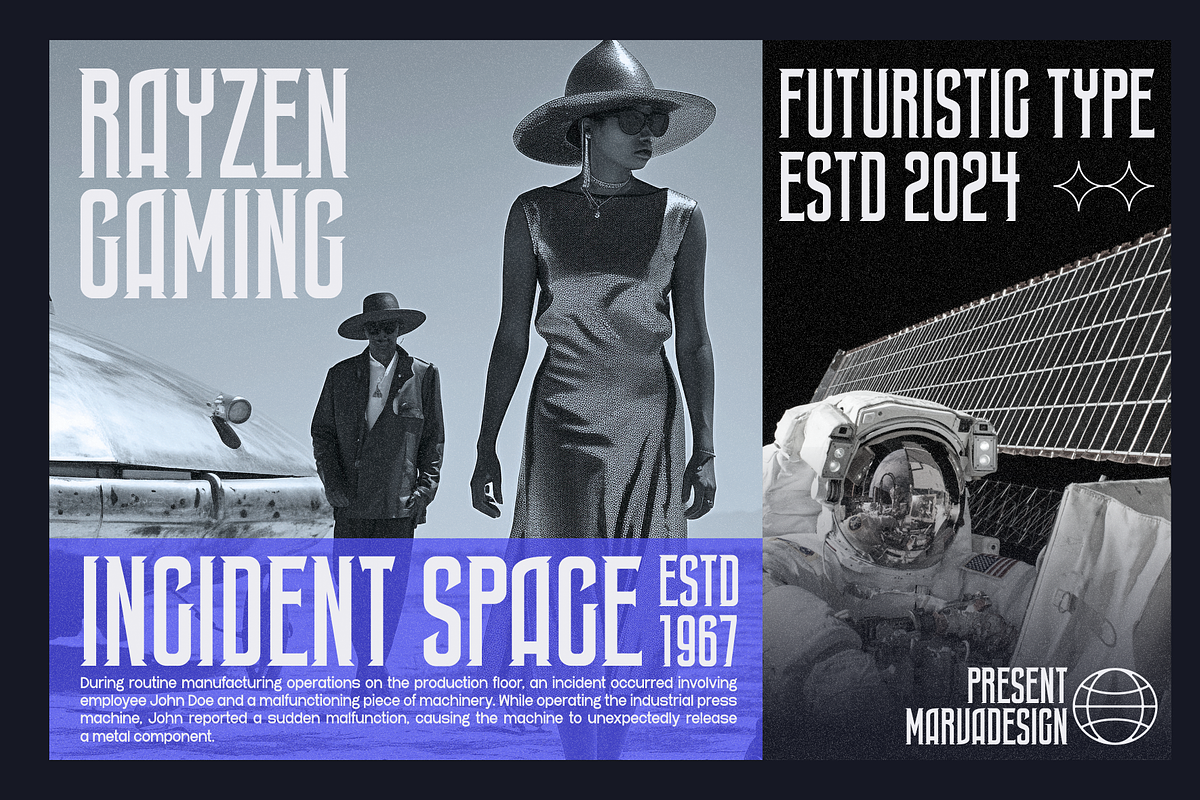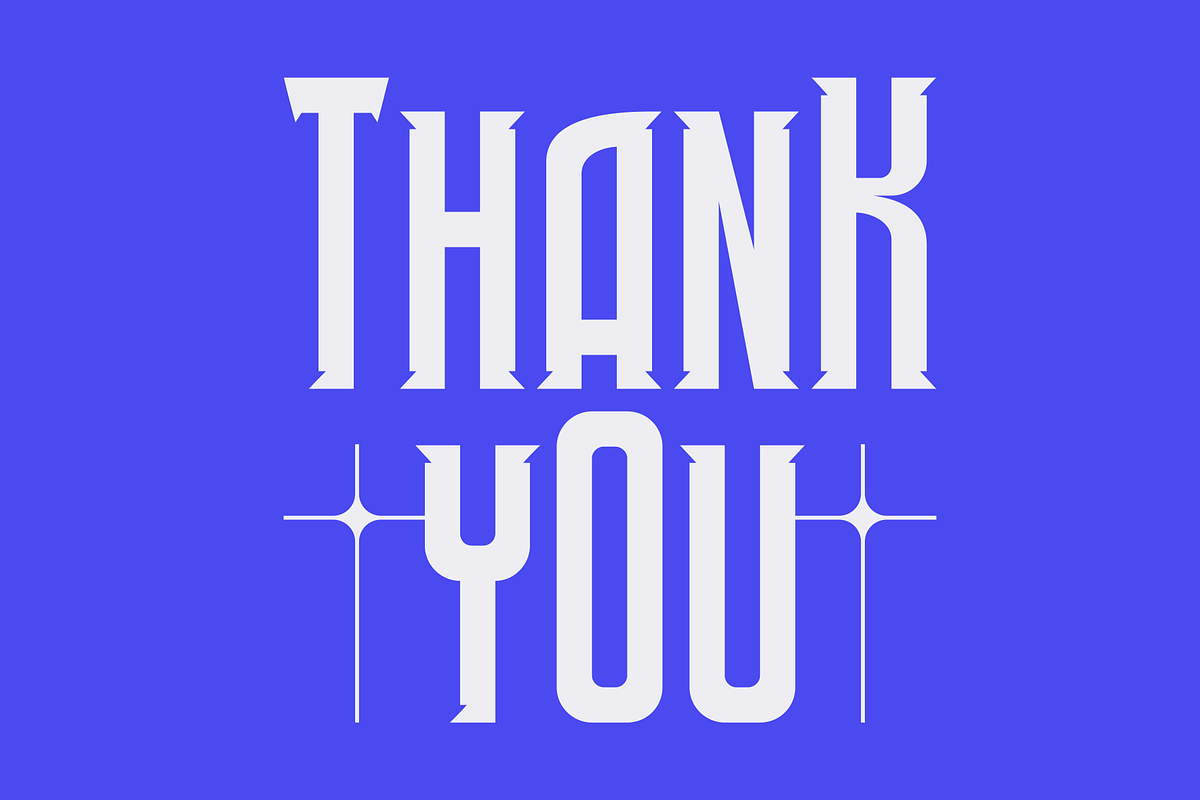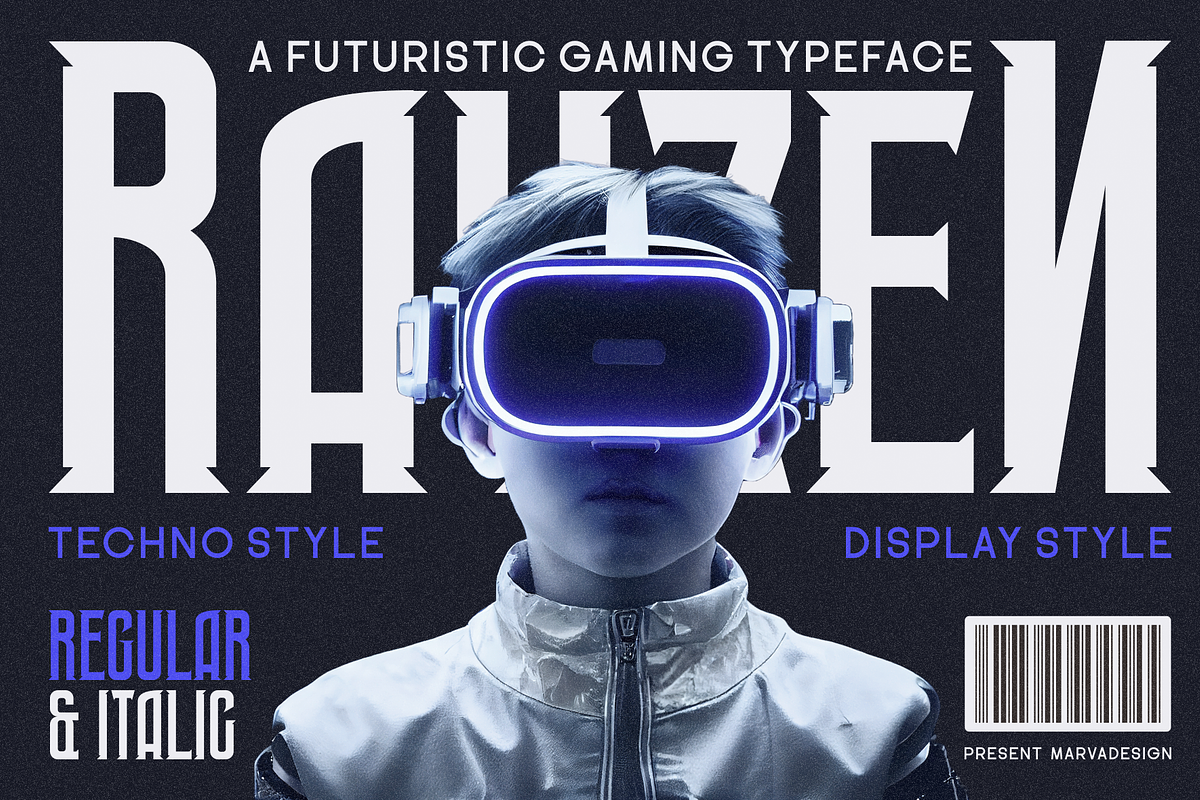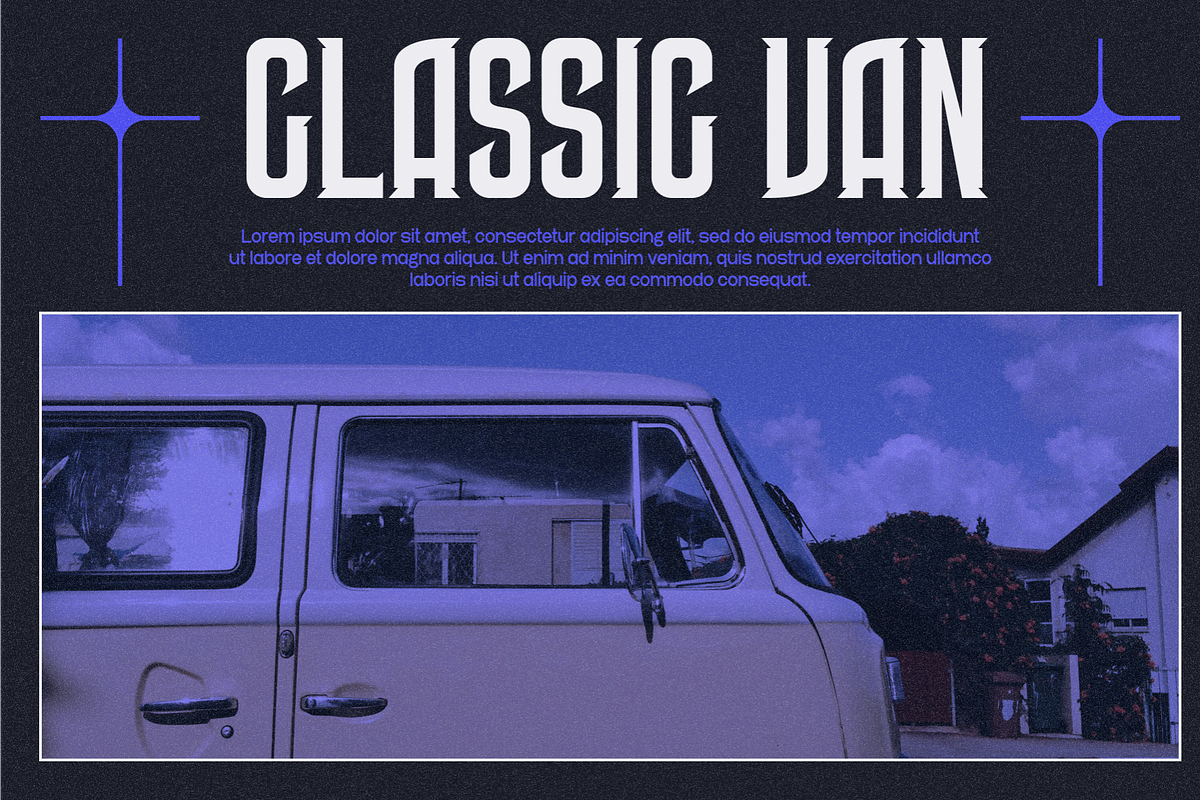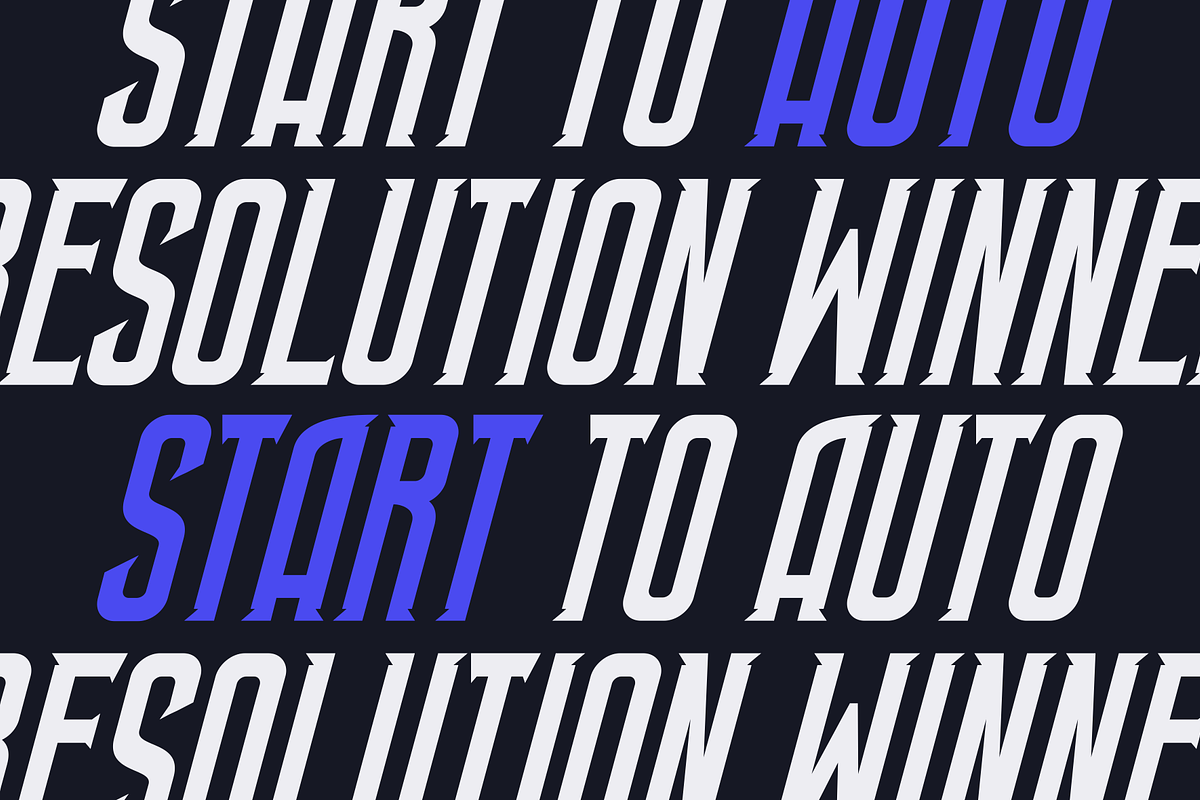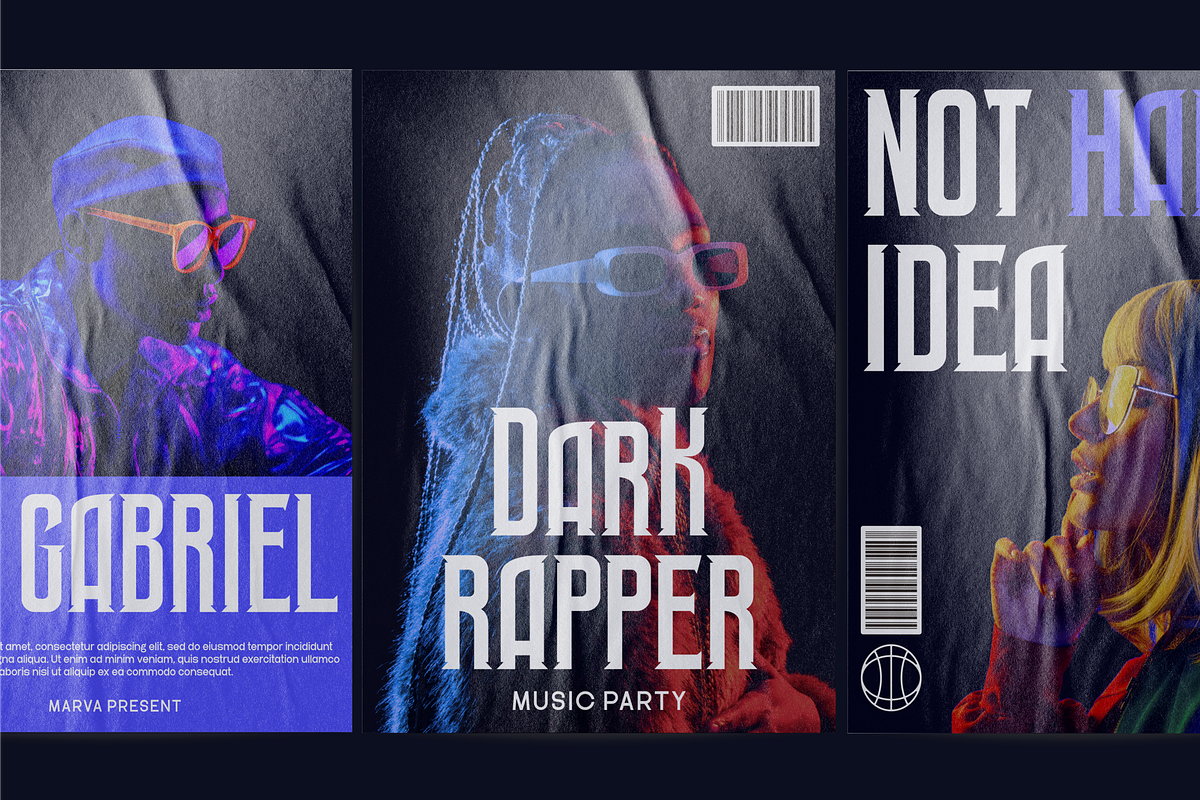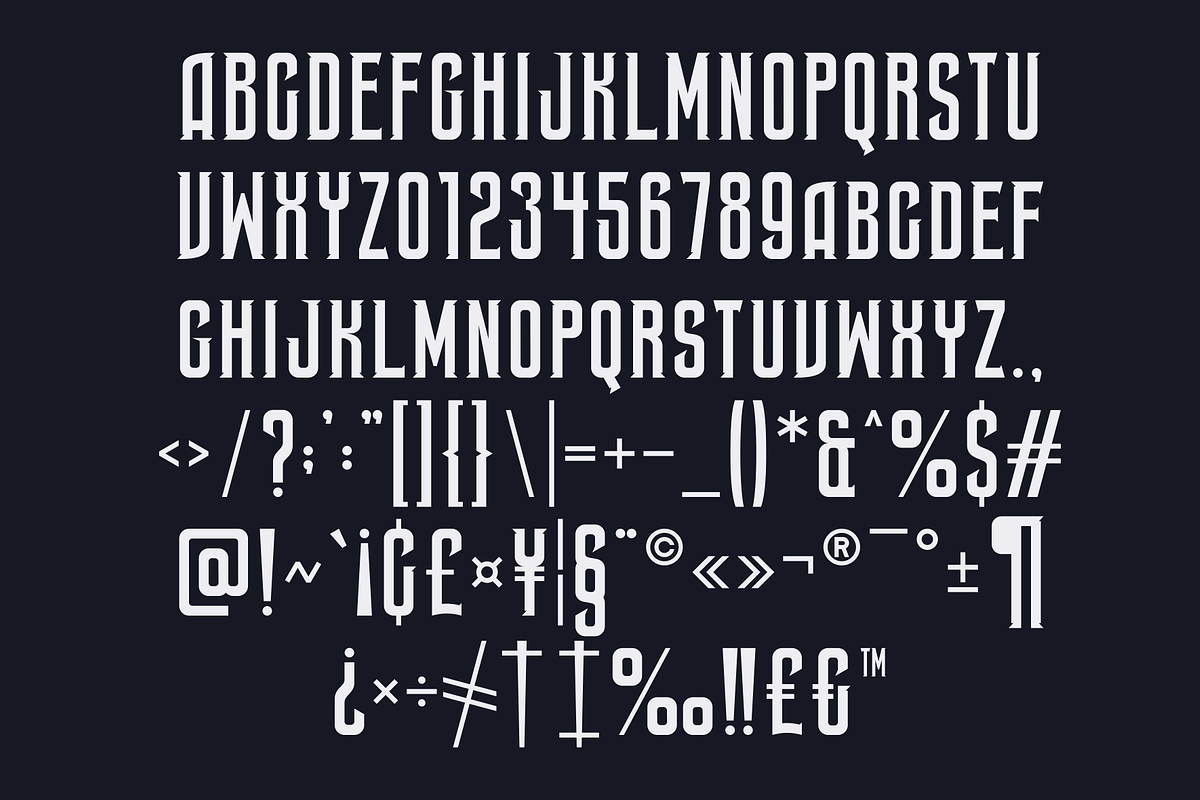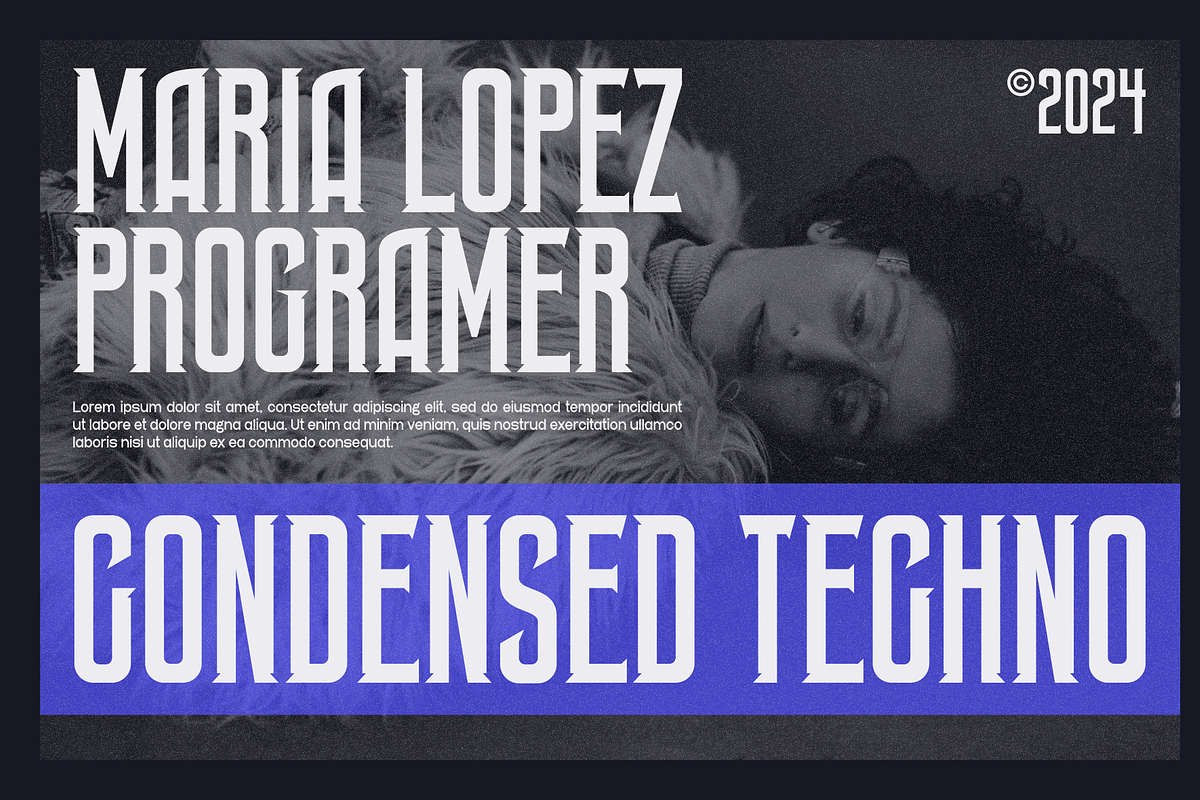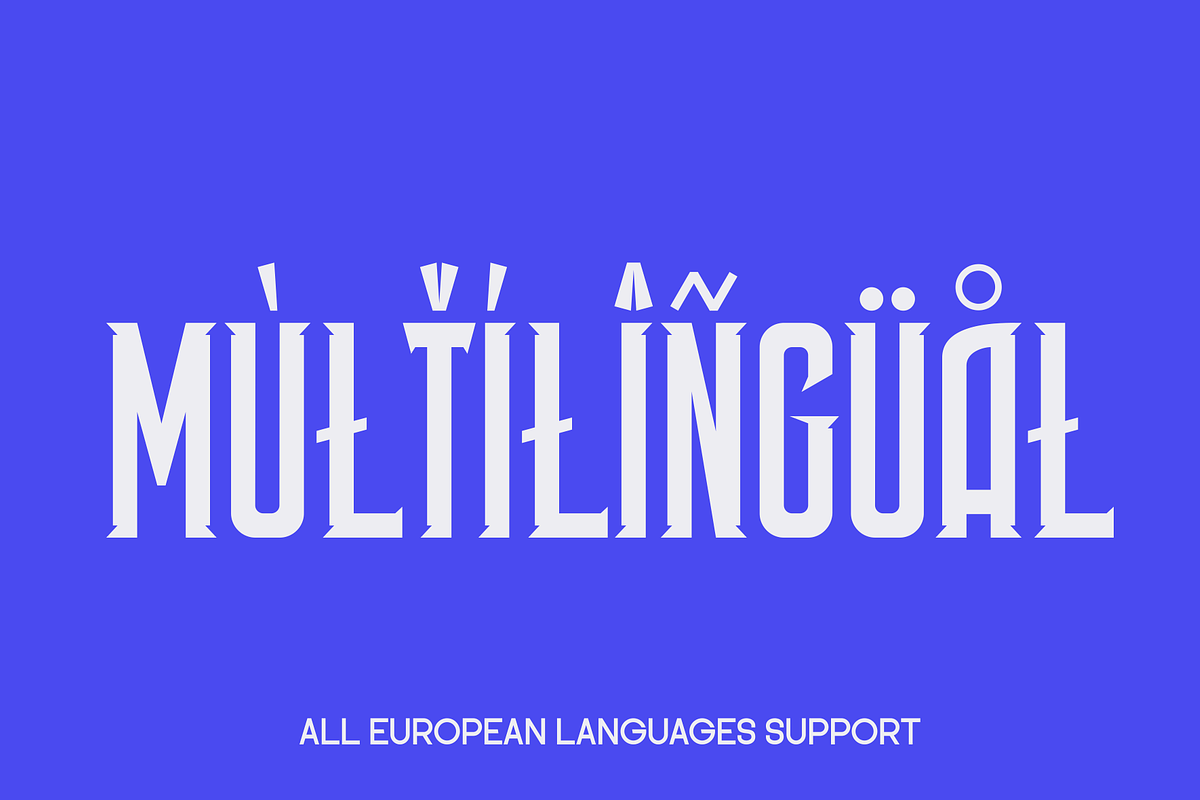
Rayzen - Futuristic Gaming Font
Introducing our new product Rayzen Font - Futuristic Gaming Font authentic display font. The font is suitable for any branding project like logo, Template Design, Product and many more. outstanding in a wide range of contexts.